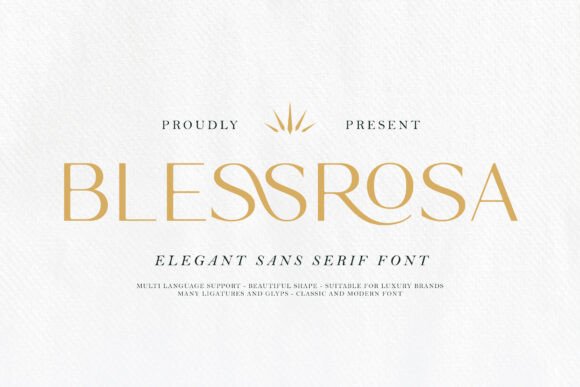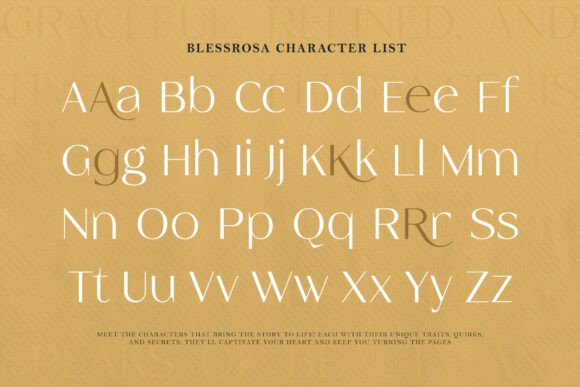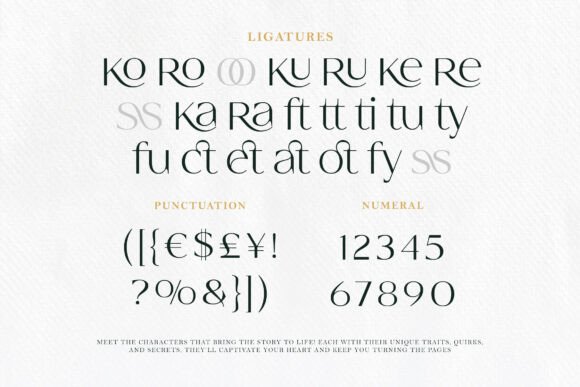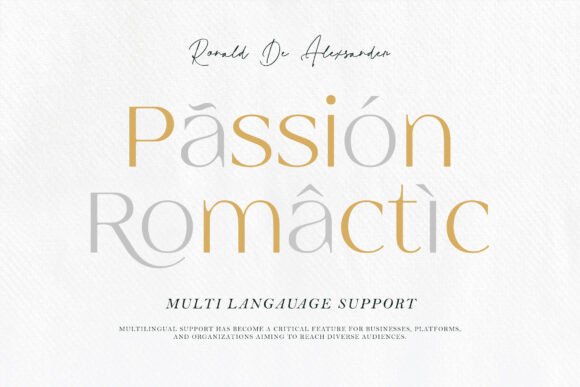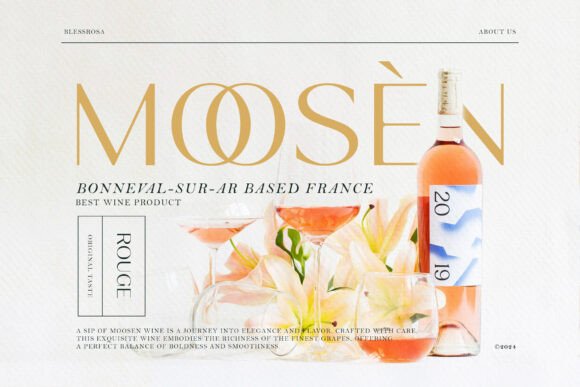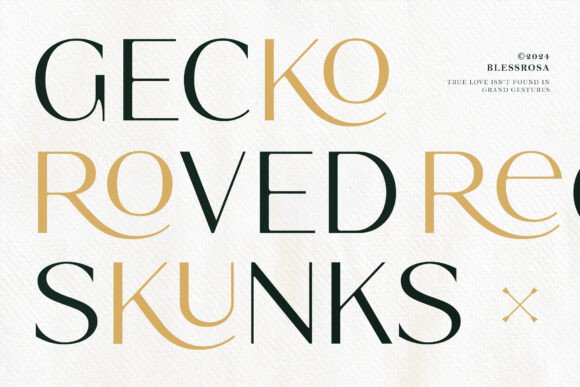
Blessrosa Font: Elevate Your Designs with Elegance and Luxury
In the world of typography, a font can make or break the aesthetic of a design project. For creatives and professionals seeking to infuse their work with luxury, beauty, and elegance, the Blessrosa font is an exceptional choice. This elegant, luxury sans serif font combines clean lines with a refined and graceful design, making it perfect for projects that demand a modern and timeless look.
The Essence of Blessrosa
Blessrosa is more than just a font; it’s a design statement. Its royal yet beautiful style is tailored for high-end branding, beauty product packaging, luxury fashion editorials, minimalist logos, wedding invitations, chic social media content, advertising campaigns, and more. The font’s clean sans serif design ensures readability while adding a sophisticated edge to your designs, making it a versatile tool for creatives.
Key Features of Blessrosa
- Comprehensive Character Set: Blessrosa comes with a comprehensive set of uppercase and lowercase letters, punctuation, numerals, and a variety of ligatures and alternates. This extensive character set provides enhanced creativity and flexibility for designers.
- Multilingual Support: With multilingual support, Blessrosa ensures seamless communication with a global audience. This feature is particularly beneficial for brands and businesses aiming to establish a presence in international markets.
- Elegant and Luxurious Aesthetic: The font’s elegant and luxurious aesthetic makes it suitable for projects where high-end quality is paramount. Its refined design exudes sophistication and style, elevating the visual impact of any design.
- Readability and Versatility: The clean sans serif design of Blessrosa ensures excellent readability across various applications, from digital media to print. Its versatility allows it to be used in a wide range of design projects, ensuring that your work stands out with a touch of elegance.
Applications of Blessrosa
The applications of Blessrosa are vast and varied, catering to the needs of designers and professionals across different industries. Some of the key applications include:
- High-End Branding: Create a lasting impression with a sophisticated brand identity that reflects luxury and elegance.
- Beauty Product Packaging: Elevate your product’s visual appeal with packaging that exudes beauty and refinement.
- Luxury Fashion Editorials: Add a touch of glamour to your fashion editorials with a font that embodies luxury and style.
- Minimalist Logos: Design sleek and sophisticated logos that make a statement with Blessrosa’s clean and elegant lines.
- Wedding Invitations: Set the tone for a luxurious and memorable event with wedding invitations that feature Blessrosa’s refined design.
- Chic Social Media Content: Enhance your social media presence with elegant and engaging content that stands out.
- Advertising Campaigns: Create compelling and sophisticated advertisements that capture the essence of your brand.
Why Choose Blessrosa?
Blessrosa is designed for creatives and professionals who value luxury, beauty, and elegance. Its perfect balance of style and functionality makes it an ideal choice for designers seeking to create timeless and luxurious designs. With Blessrosa, you can:
- Enhance your designs with a sophisticated and elegant aesthetic.
- Ensure readability and versatility across various applications.
- Communicate effectively with a global audience through multilingual support.
- Streamline your design process with a comprehensive character set and ligatures.
In conclusion, the Blessrosa font is a luxurious and elegant sans serif font that offers a perfect blend of style and functionality. Its refined design, comprehensive character set, and multilingual support make it an excellent choice for creatives and professionals seeking to elevate their designs. Whether you’re working on high-end branding, luxury fashion editorials, or chic social media content, Blessrosa is the ideal font to add a touch of sophistication and elegance to your work.
Discover the beauty and luxury of Blessrosa and transform your designs into timeless masterpieces.